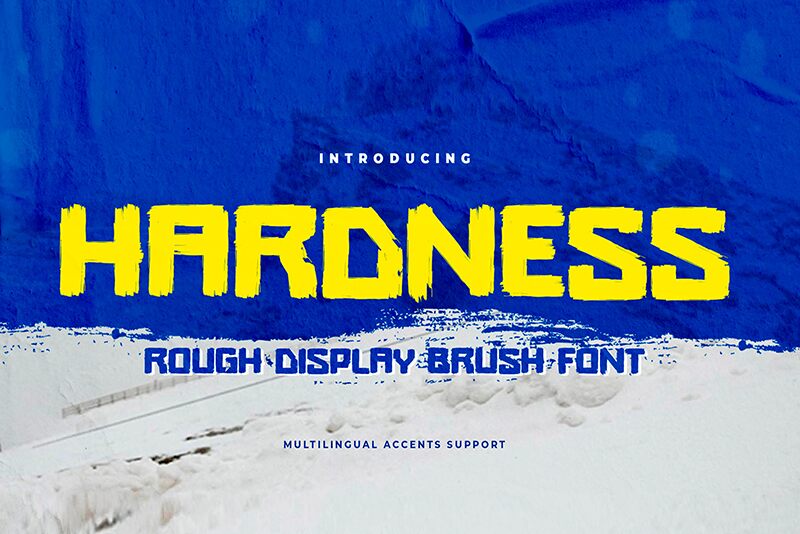
Hardness font family designed by Gassstype in a brush texture font filled with energy. The font features a rugged style that nods to an industrial influence with bold brush strokes. The intense presence makes it a suitable way of making bold statements of whatever text or content is being put across. Given that the font has a modern aesthetic, it is perfect for display text usage.
Use this typeface for poster design, advertising billboards, invitation cards, and packaging design. Other uses can be for apparel design, social media posts, movie titles, branding, video intro, and headlines.